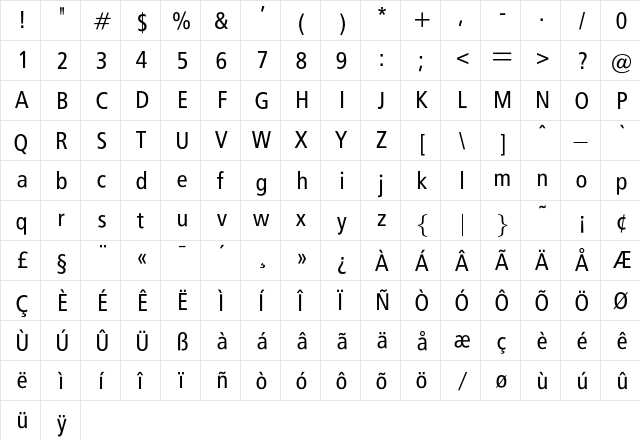
CarlosNoseven Regular
Design Context for CarlosNoseven Typeface
CarlosNoseven takes a measured approach to typography — its balanced proportions and neutral character make it a reliable workhorse for both digital and print work.